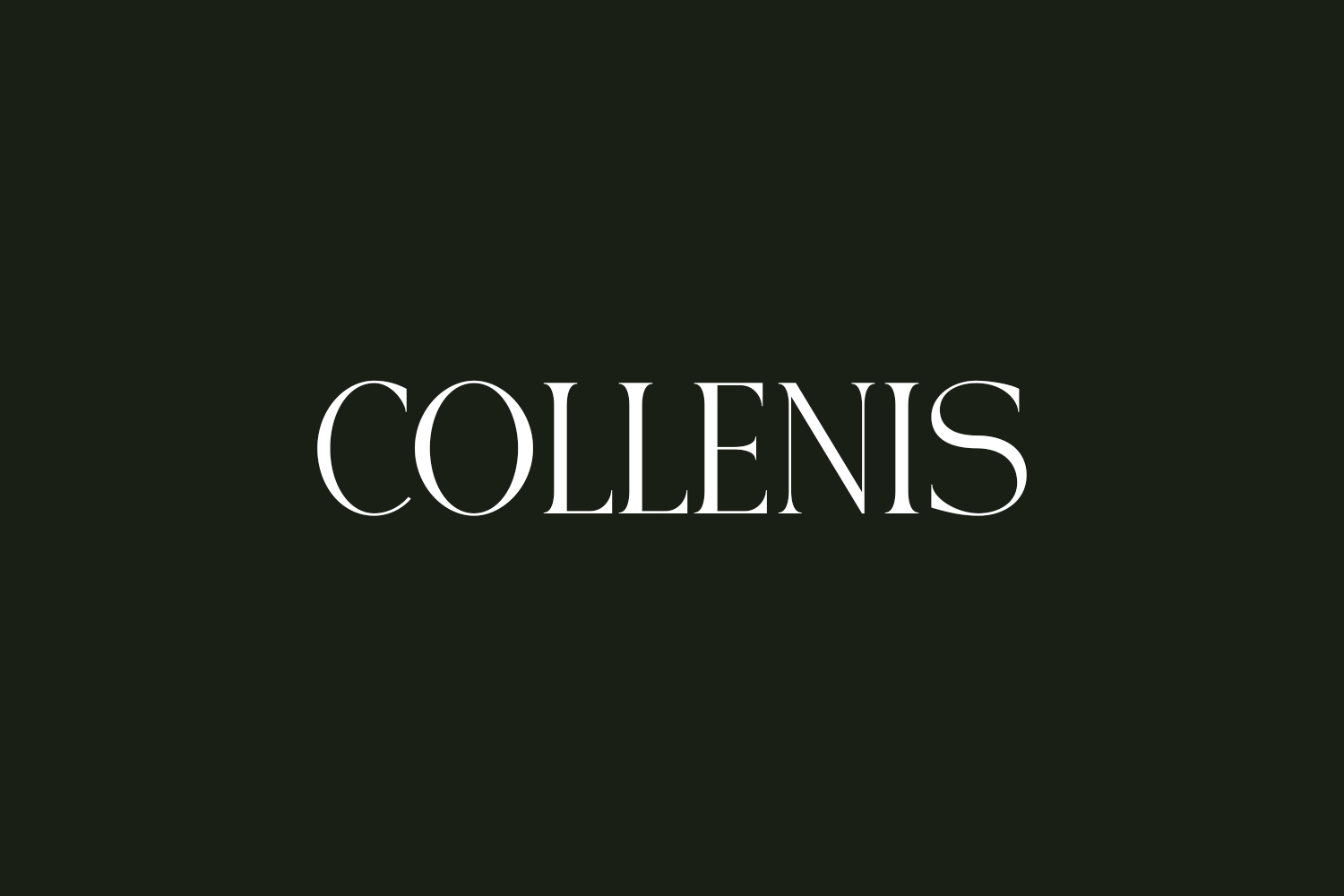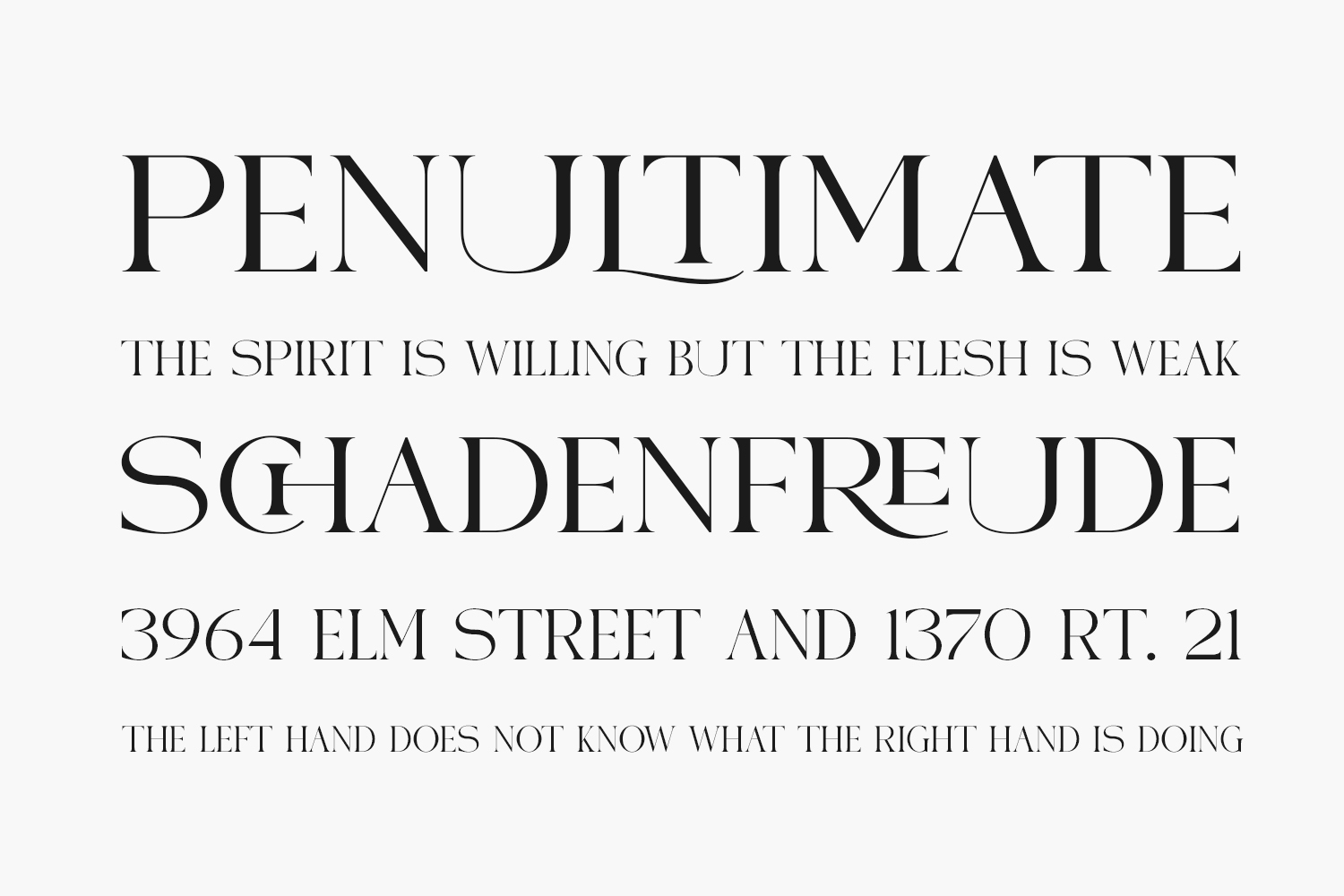
Collenis Free Font is a luxurious, stylish serif display font that exudes sophistication and elegance. Its delicate letterforms and intricate details create a sense of refinement and grace. Perfect for high-end branding, editorial layouts, and luxury products, Collenis adds a touch of femininity and allure to any design. Elevate your projects with the timeless beauty of Collenis. Collenis Free Font is a luxurious, stylish serif display font that exudes sophistication and elegance. Its delicate letterforms and intricate details create a sense of refinement and grace. Perfect for high-end branding, editorial layouts, and luxury products, Collenis adds a touch of femininity and allure to any design. Elevate your projects with the timeless beauty of Collenis. Collenis Free Font is free for personal use only. Please purchase the full version for commercial use.